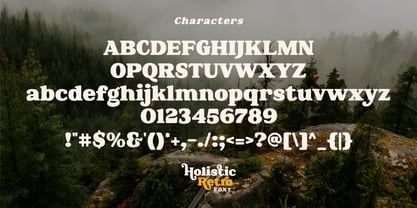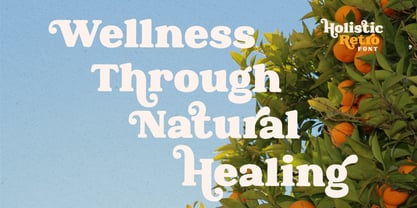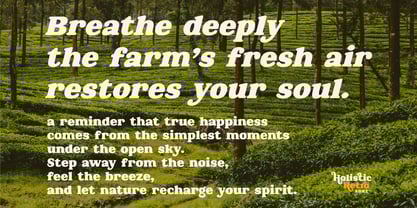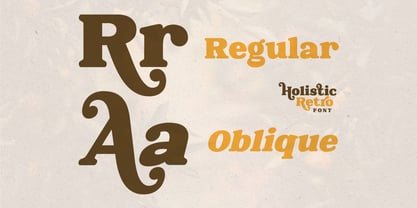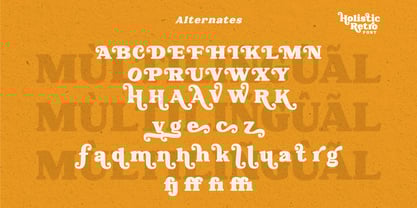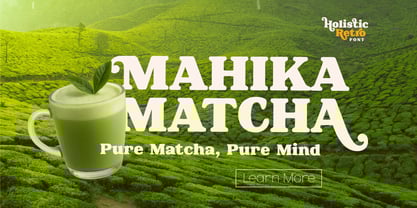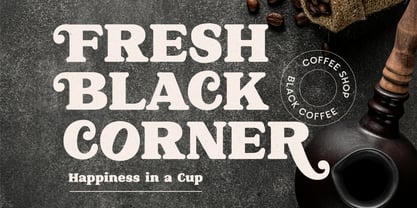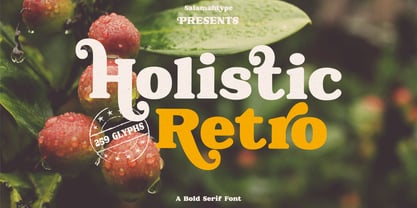
Holistic Retro
by Salamahtype
The Holistic Retro Font Family was designed by Aswangga Sadike and published by Salamahtype. Holistic Retro contains 2 styles and family package options.
Holistic Retro is a bold, smooth serif font that embodies a retro vintage style, infusing your designs with a nostalgic charm. This versatile typeface offers a variety of alternates, providing creative flexibility ideal for crafting eye-catching logos, branding materials, posters, social media graphics, and digital projects. Combining classic curves with modern details, Holistic Retro is perfect for both professional and artistic applications. Enhance your work with a timeless retro aesthetic using Holistic Retro! **Features:** - Uppercase & Lowercase - Alternates & Ligatures - Punctuation & Symbols - Multilingual Support **Perfect for:** Logo design, branding, packaging, posters, digital art, and more.
Designers: Aswangga Sadike
Publisher: Salamahtype
Foundry: Salamahtype
Design Owner: Salamahtype